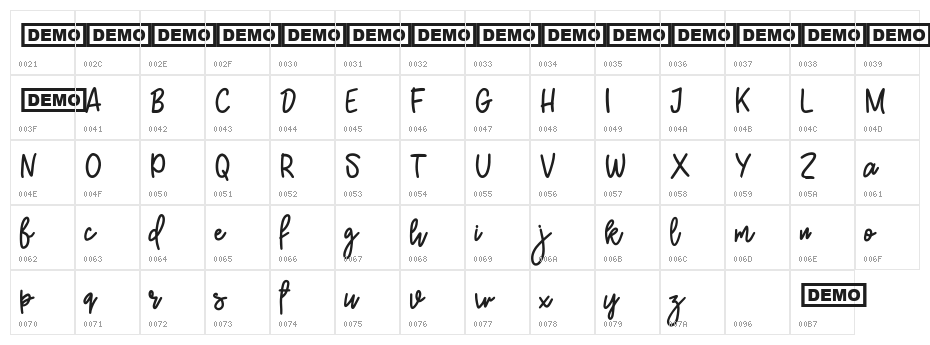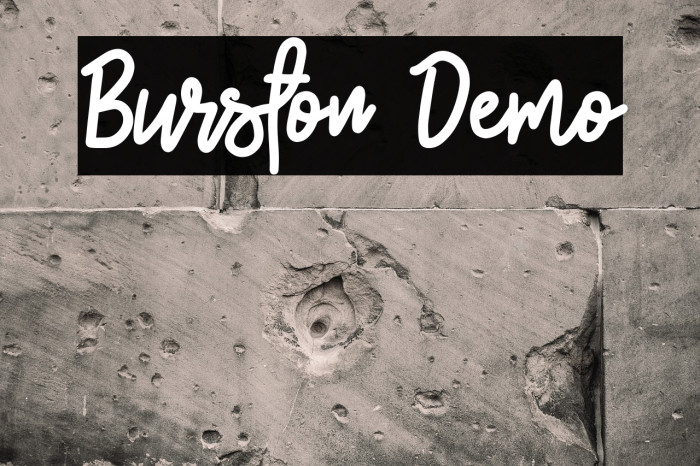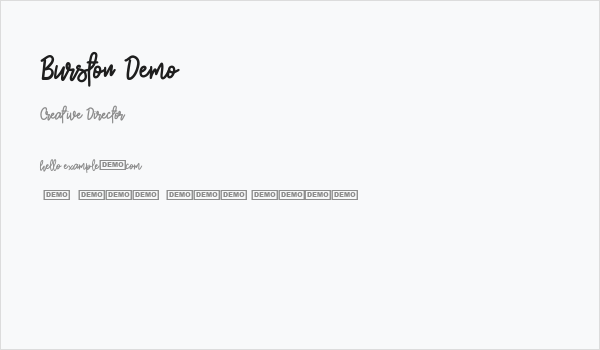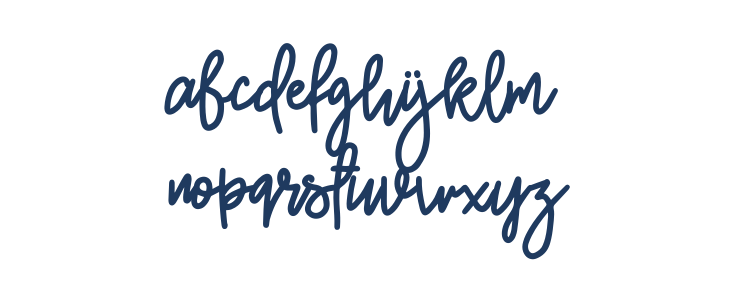
Burston Demo Font
Burston Demo Description
This font features a playful and dynamic style with a handwritten appearance. The uppercase letters are bold and slightly rounded, giving a friendly and approachable feel. The lowercase letters exhibit a more cursive and flowing style, adding a touch of elegance and creativity. The font maintains a consistent stroke width, providing a balanced and harmonious look. It is versatile and can be used for various design projects that require a personal and informal touch.
| Proposed Projects | Ideal for greeting cards, invitations, logos, and branding materials that seek a personal and creative touch. |